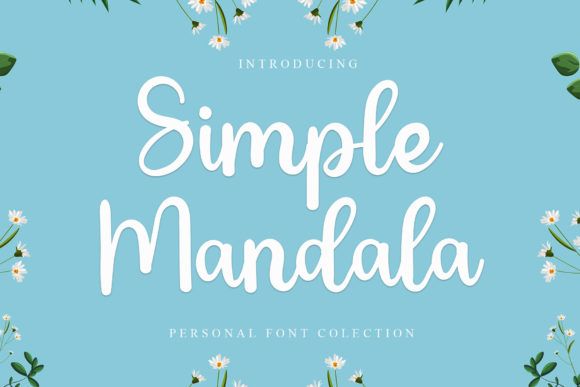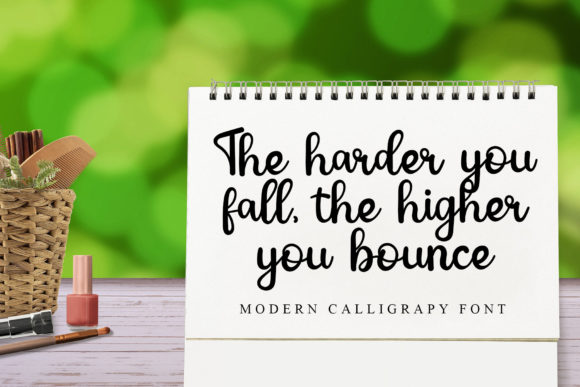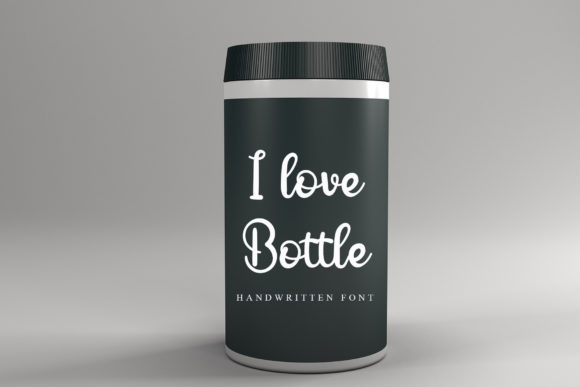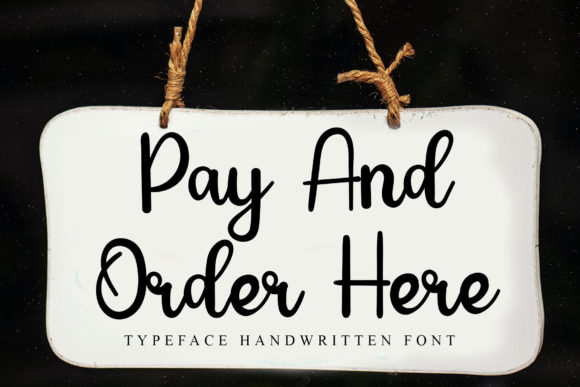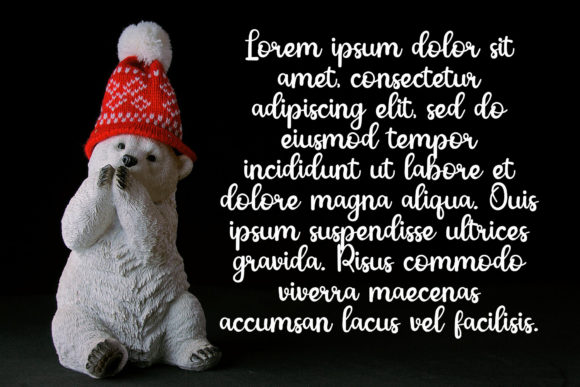
Simple Mandala Font
Simple Mandala is a clean and versatile handwritten font, designed to bring a neat and adaptable touch to your text. Ideal for a range of design projects, this font is particularly well-suited for product packaging, branding, magazine covers, social media posts, weddings, or any context where expressing words above the background is essential.
The simplicity and neatness of Simple Mandala make it a great choice for product packaging, ensuring that your text is clear and legible while adding a touch of handwritten charm. Its adaptability allows it to complement various types of products and brand aesthetics.
In branding projects, Simple Mandala’s handwritten style adds a personal and authentic feel to your visual identity. Whether used in logos, business cards, or other materials, the font contributes to a brand image that is approachable and relatable.
For magazine covers, Simple Mandala brings a touch of elegance and simplicity, making your text visually appealing and engaging. Its neat and adaptable design ensures that it can suit different design themes.
On social media platforms, Simple Mandala stands out with its clean and versatile appearance. The font enhances the visual appeal of posts, captions, and other textual elements, making your content more eye-catching.
In wedding-related materials, Simple Mandala adds a subtle and elegant touch. Its handwritten style is well-suited for invitations, thank-you cards, and other wedding-related designs, contributing to a warm and personal atmosphere.
Whether used in print or digital media, Simple Mandala is a valuable asset for designers seeking a font that combines neatness with adaptability. Its ability to express words above various backgrounds makes it a versatile choice for a wide range of creative projects.